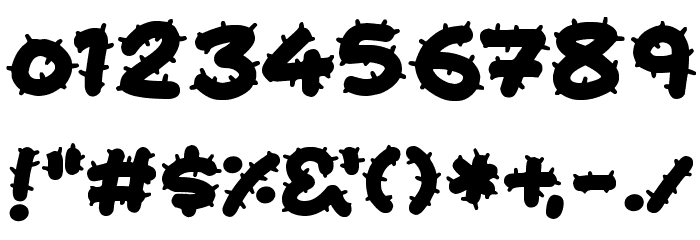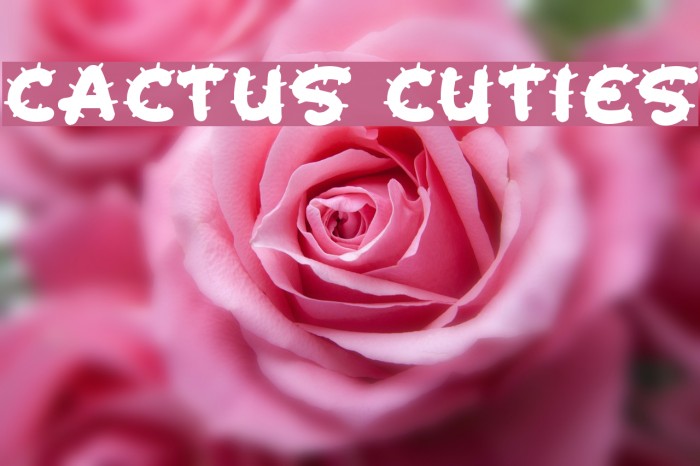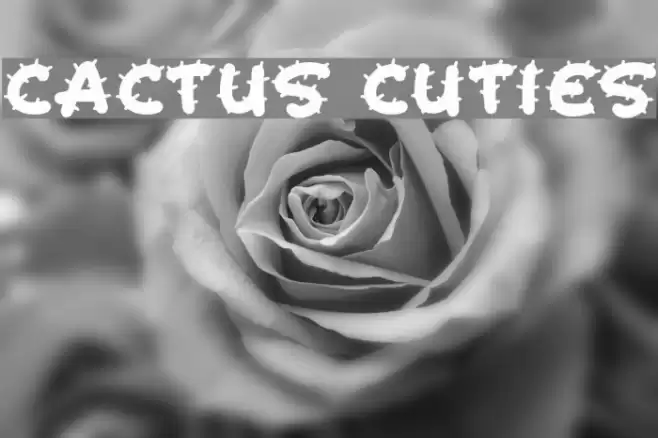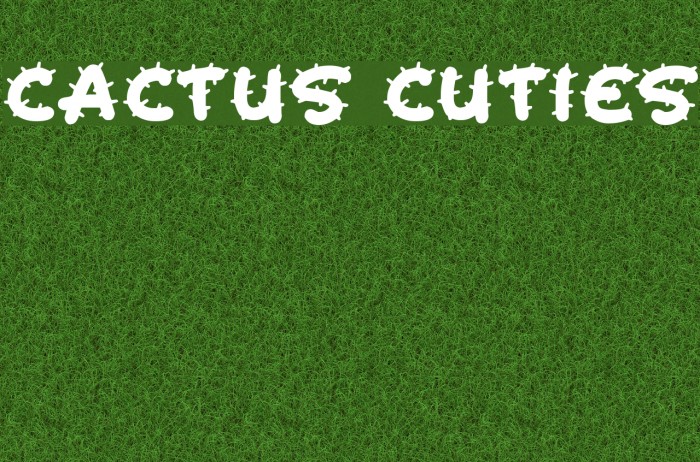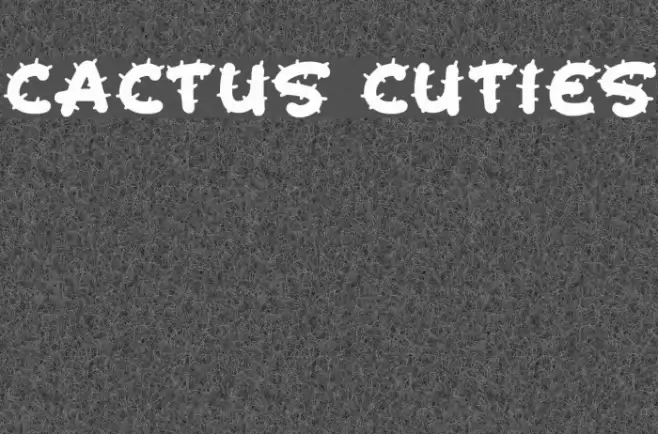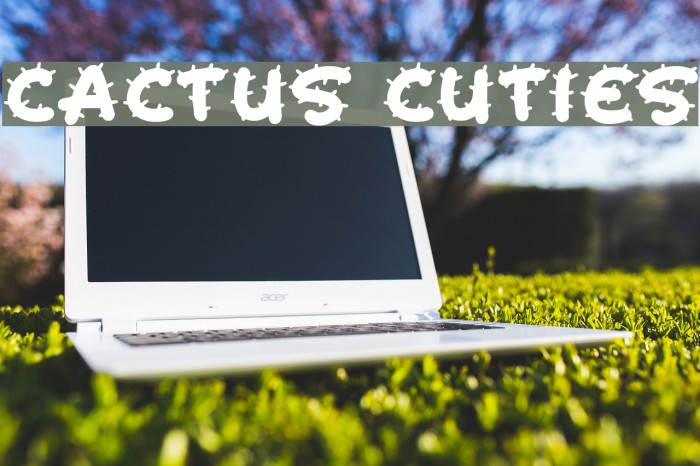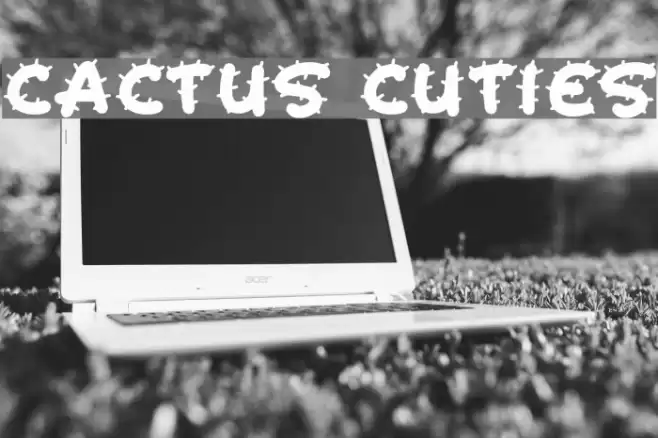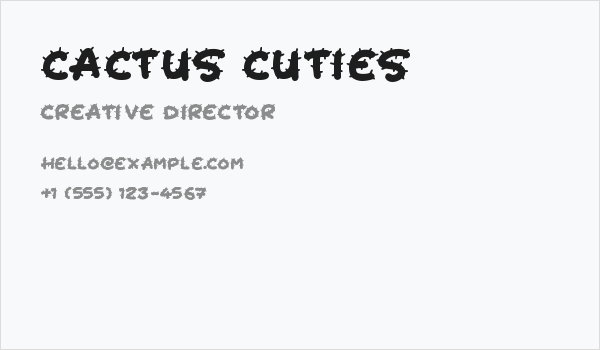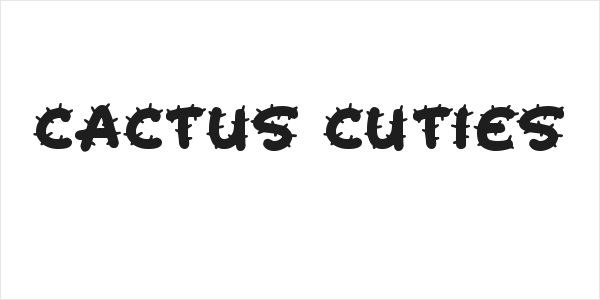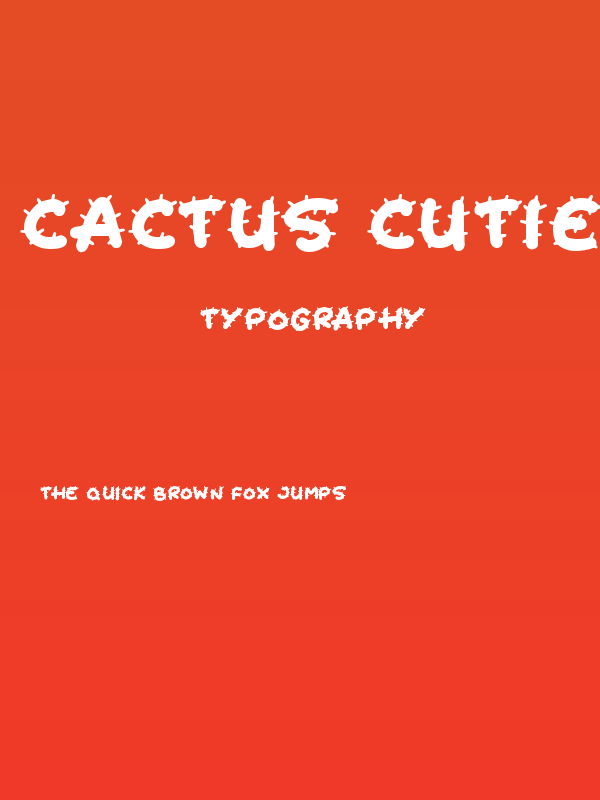
Cactus Cuties Font
Cactus Cuties Description
This playful and bold font features a unique design reminiscent of cactus spines, giving it a quirky and fun appearance. The characters are thick and heavily stylized, with each letter adorned with small, pointed extensions that mimic the look of cactus thorns. The font maintains a consistent weight throughout, creating a cohesive and visually striking appearance. Its boldness and decorative style make it ideal for eye-catching designs. The font's whimsical nature lends itself well to creative projects that require a touch of humor or a desert-themed aesthetic.
| Proposed Projects | Perfect for children's book covers, playful posters, themed party invitations, or branding for desert-themed businesses. |